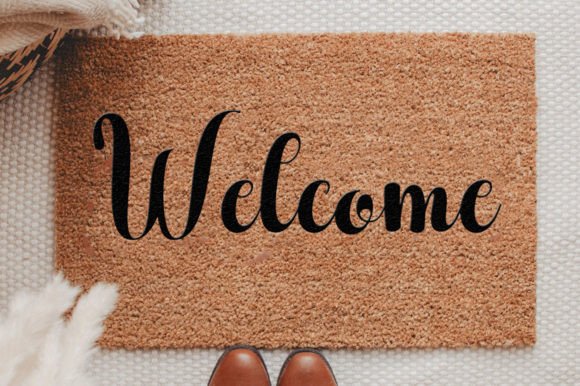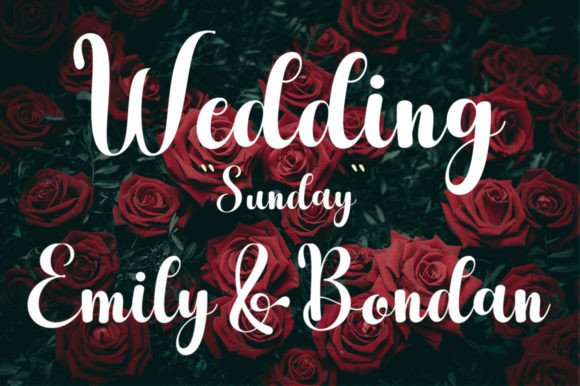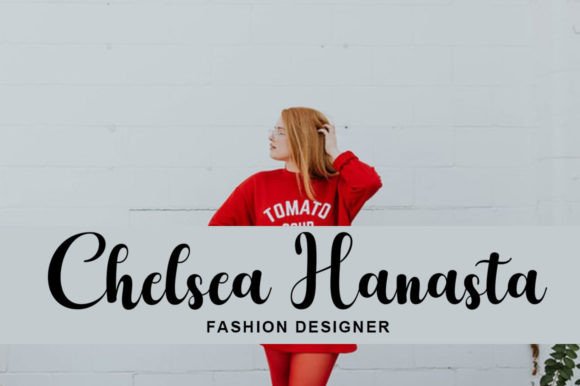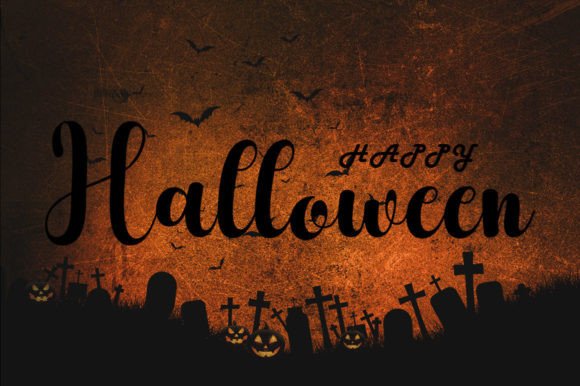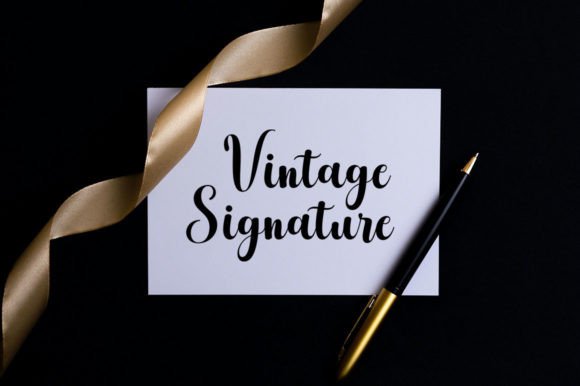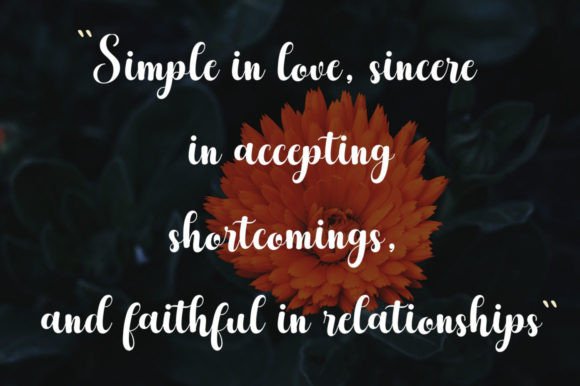
The Bintaro Font: A Fun Brush Font to Elevate Your Designs
Have you ever been in the middle of a design project, and suddenly, you’re stuck on finding the perfect font? I recall a recent experience where I was working on a client’s branding project, and I just couldn’t find a font that captured the playful yet modern vibe they were looking for. That’s when I stumbled upon the Bintaro font, and it completely transformed my design.
An Honest Review of Bintaro Font
What I Love About Bintaro Font
- ✨ Fresh and Modern Feel: Bintaro font gives your designs a fresh and modern feel that’s perfect for quotes, cards, logos, and more.
- ✅ Smooth Lines: The font features nice smooth lines that make it ideal for crafters and designers who want to add a personal touch to their work.
- 🎉 Bouncy Baseline: The bouncy baseline of Bintaro font adds a playful touch to your designs, making them stand out from the crowd.
While Bintaro font is an excellent choice for many design projects, there are a few things to keep in mind:
- 🤔 Limited Formality: Due to its playful nature, Bintaro font may not be the best choice for formal or professional designs.
- ⚠️ Legibility at Small Sizes: As with many script fonts, Bintaro may become less legible at very small sizes, so it’s best to use it at larger sizes or for headlines.
The Backstory of Bintaro Font
Bintaro font was designed with the intention of creating a fun, yet modern font that would add a playful touch to designs. The designer aimed to create a font that would be perfect for crafters, designers, and anyone looking to add a personal touch to their work.
Q: What type of projects is Bintaro font best suited for?
A: Bintaro font is perfect for quotes, cards, logos, and other designs where you want to add a playful, modern touch.